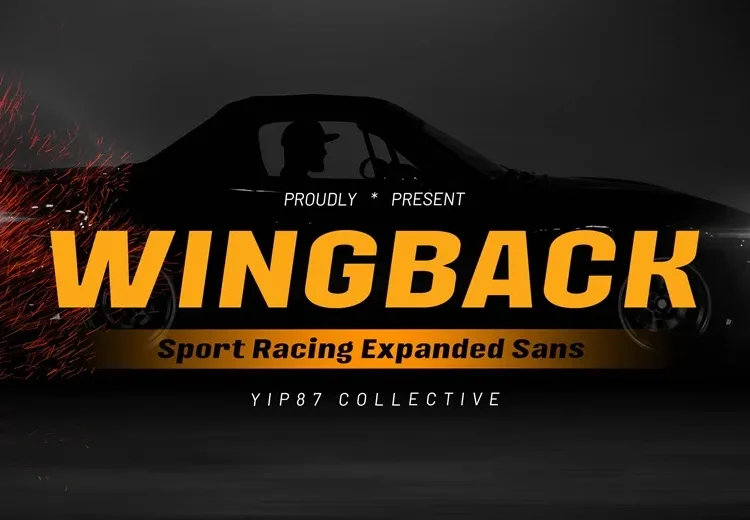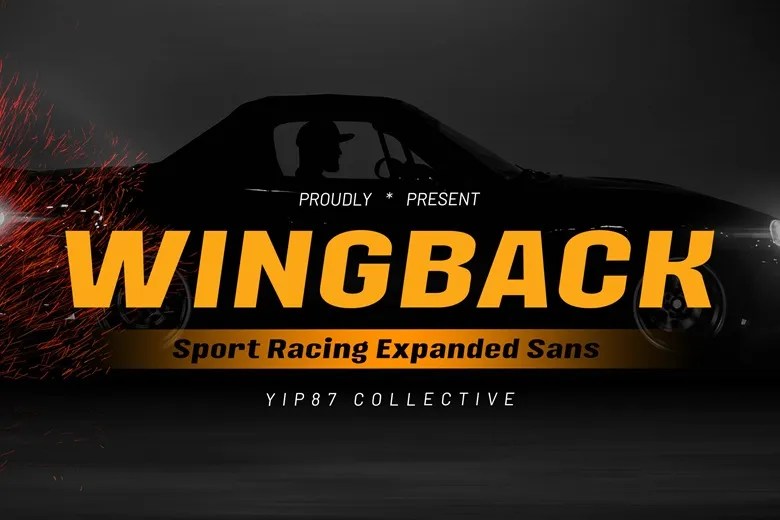
Wingback Font
Wingback is a sleek and dynamic sans serif typeface designed to capture the essence of speed and motion. With its bold, aggressive lettering and sharp, streamlined lines, this font embodies the spirit of motorsports. Perfectly suited for sports-related projects, Wingback is an excellent choice for logos, banners, and merchandise tied to racing teams and athletic events.
The bold, commanding presence of Wingback makes it a powerful tool for conveying energy and competitiveness. Whether you’re designing branding for a sports team, creating eye-catching banners for a racing event, or crafting stylish merchandise, this typeface will elevate your designs and communicate a sense of action and velocity.
Wingback combines modern aesthetics with a sporty edge, making it ideal for a wide range of applications. From digital platforms to physical products, this font ensures your work stands out with its striking and energetic appeal.